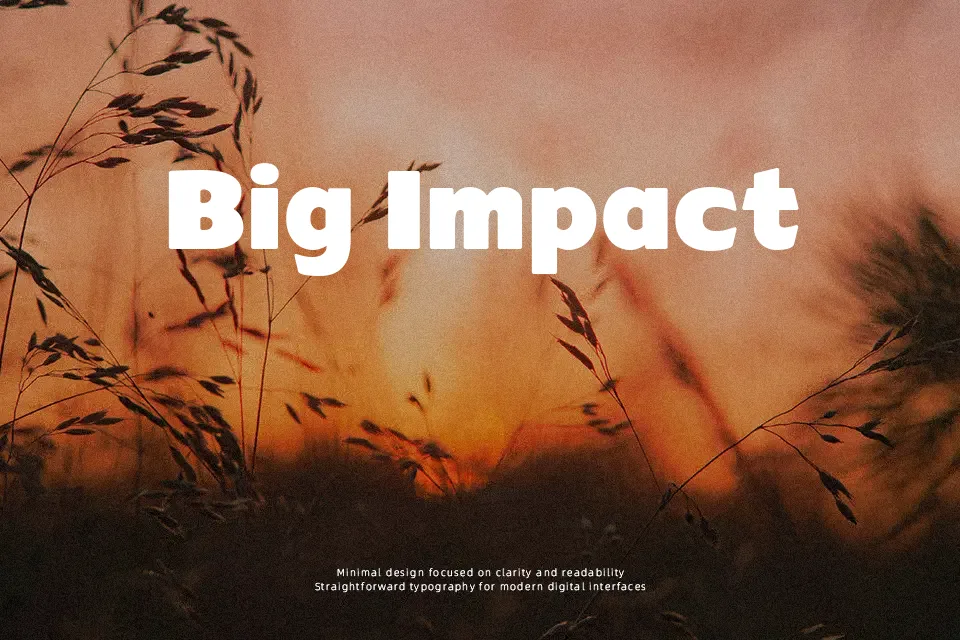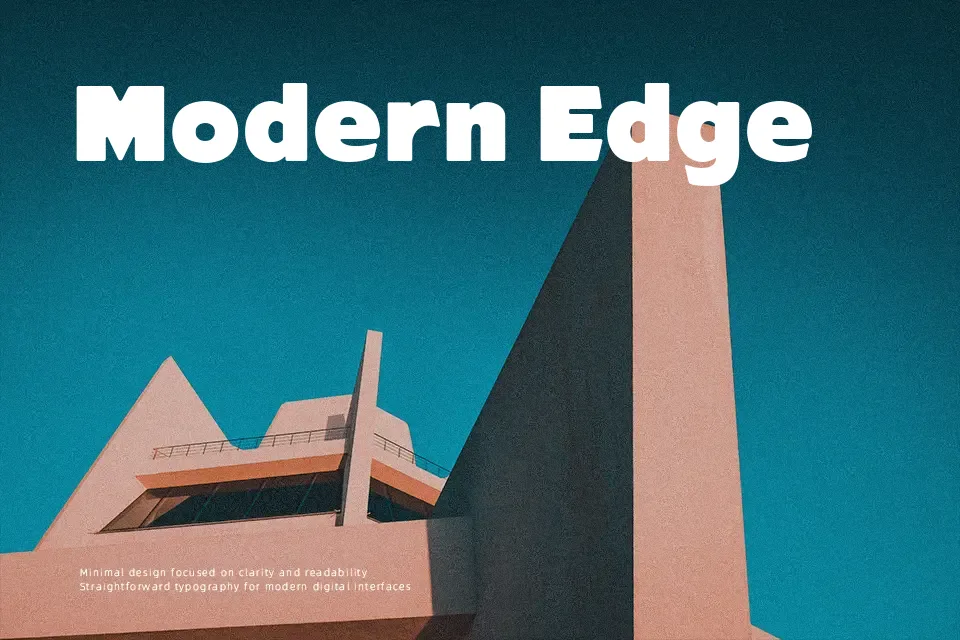
ARB-218 Big&Blunt Font
Chunky strokes, squared-off terminals, and near-zero stroke contrast — ARB-218 Big&Blunt makes no attempt at elegance, and that’s the point. Originally documented in the March 1950 issue of *Signs of the Times* magazine as “No. 2 Plain Egyptian Blunt Type,” this face was designed for speed lettering on canvas posters and walls. The digital version, released by Fontry in 2010, preserves that same unapologetic weight, making it a credible pick for retro poster headlines, event banners, and vintage-themed branding. It also includes a neon-line effect variant, useful for layered two-color designs. That said, its heavy weight and tight spacing make it unsuitable for body copy or any layout where readability at small sizes matters.
Best For:- Vintage poster and canvas-style headlines
– Retro storefront or signage mockups
– Music event flyers with a mid-century aesthetic
– Layered neon-effect display graphics
Not Ideal For:- Body text or paragraph-length copy
– Corporate or formal brand identities
– Small-scale UI labels or captions
– Any layout requiring high readability at small point sizes
Perfect for advertising, branding, and headline, with a bold and display style.